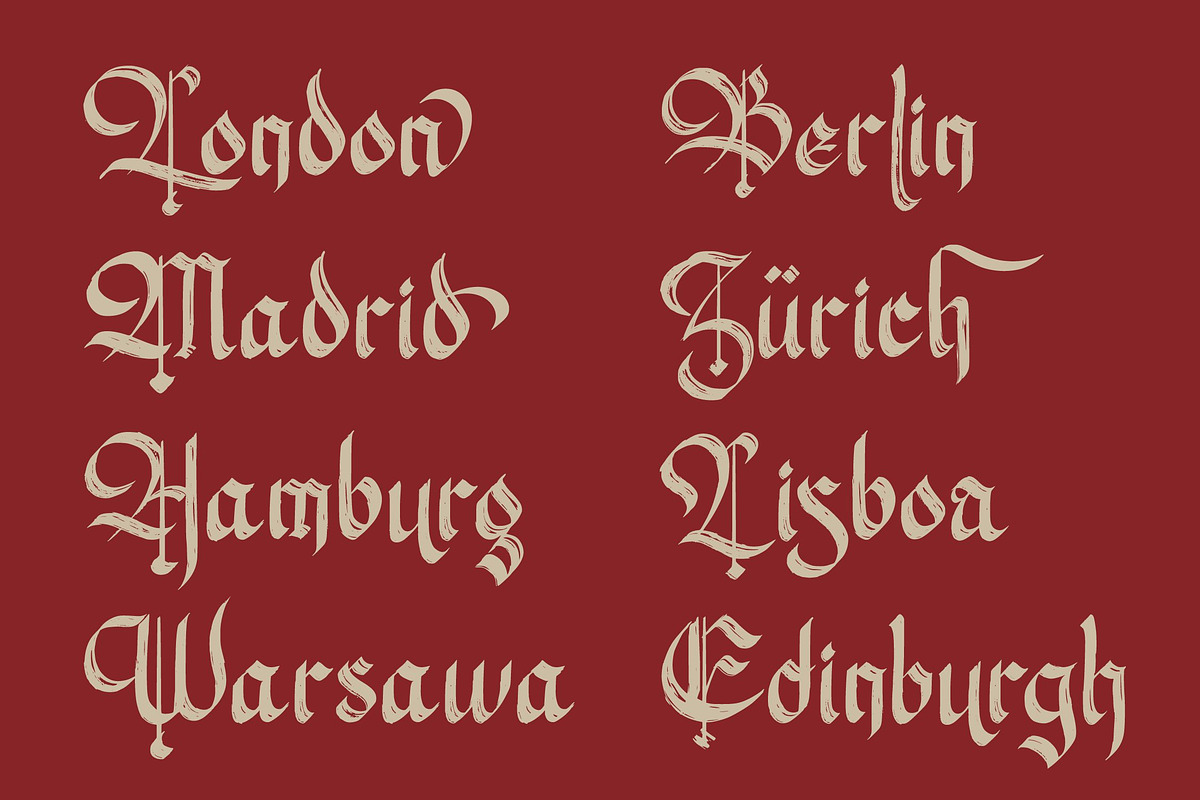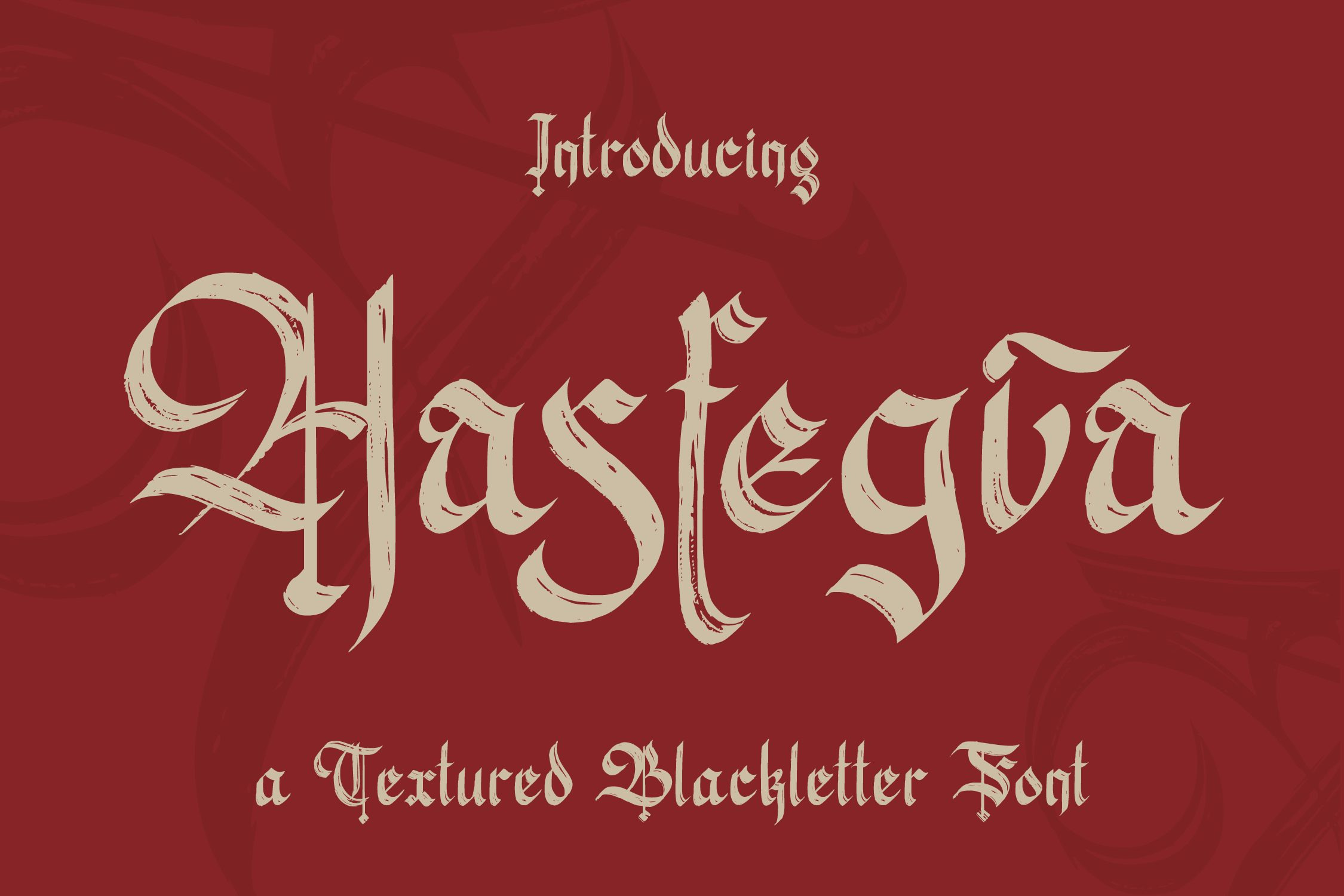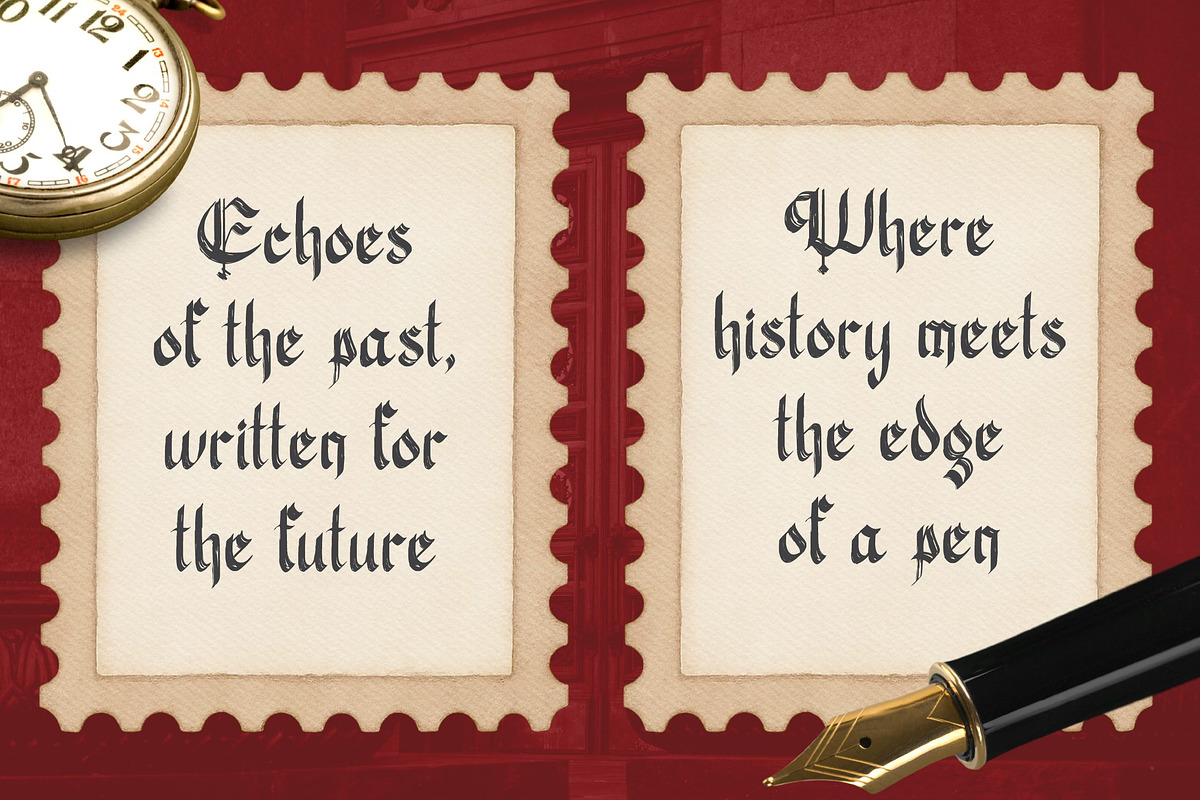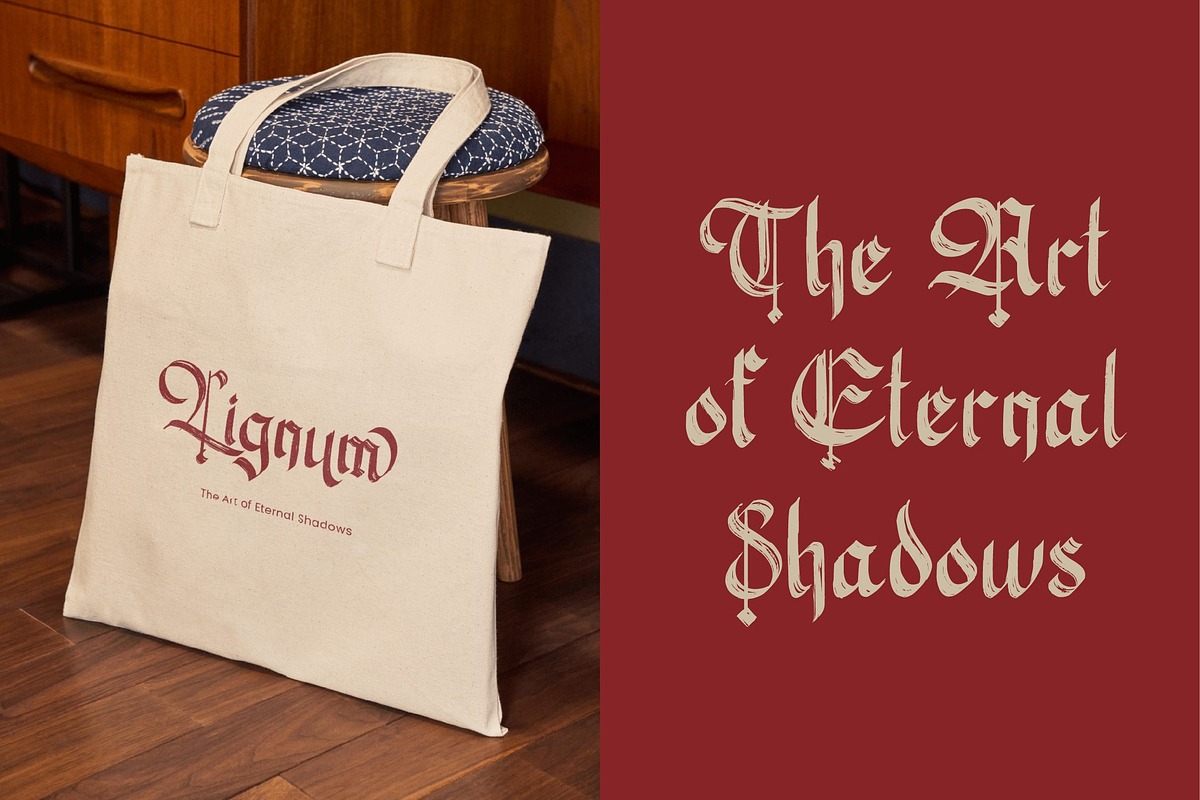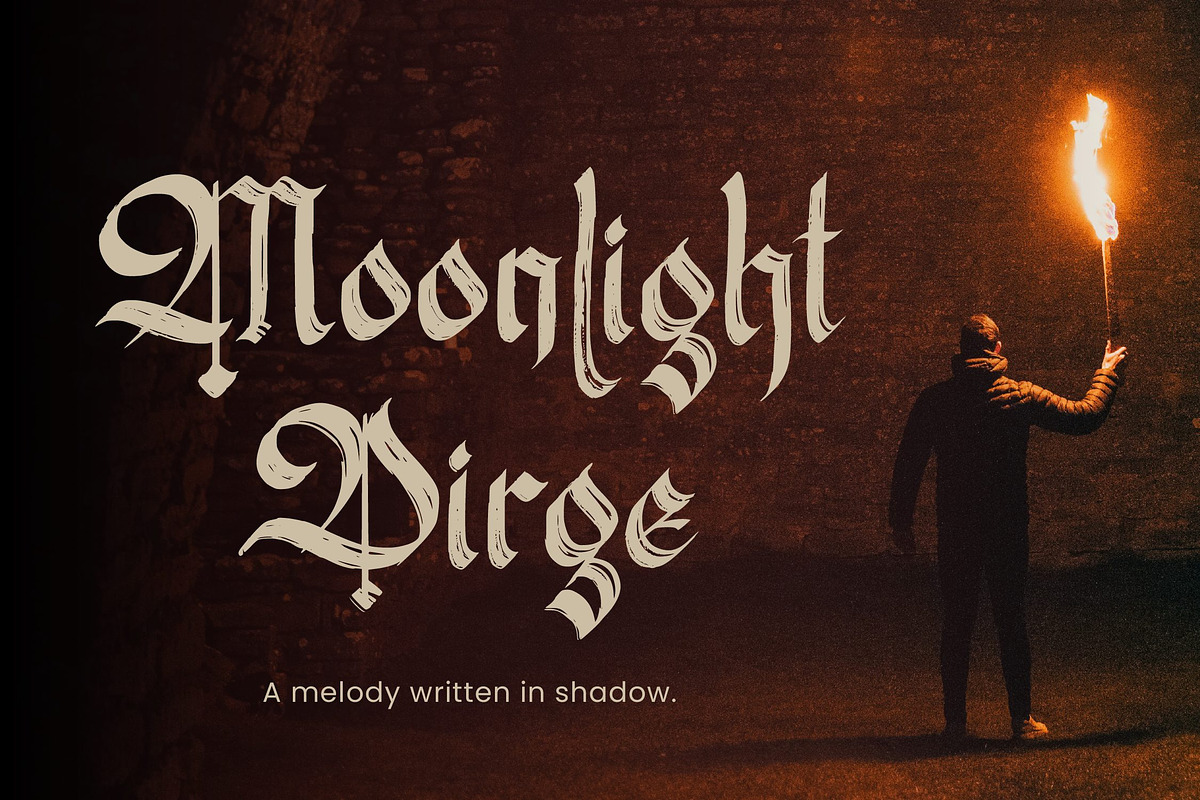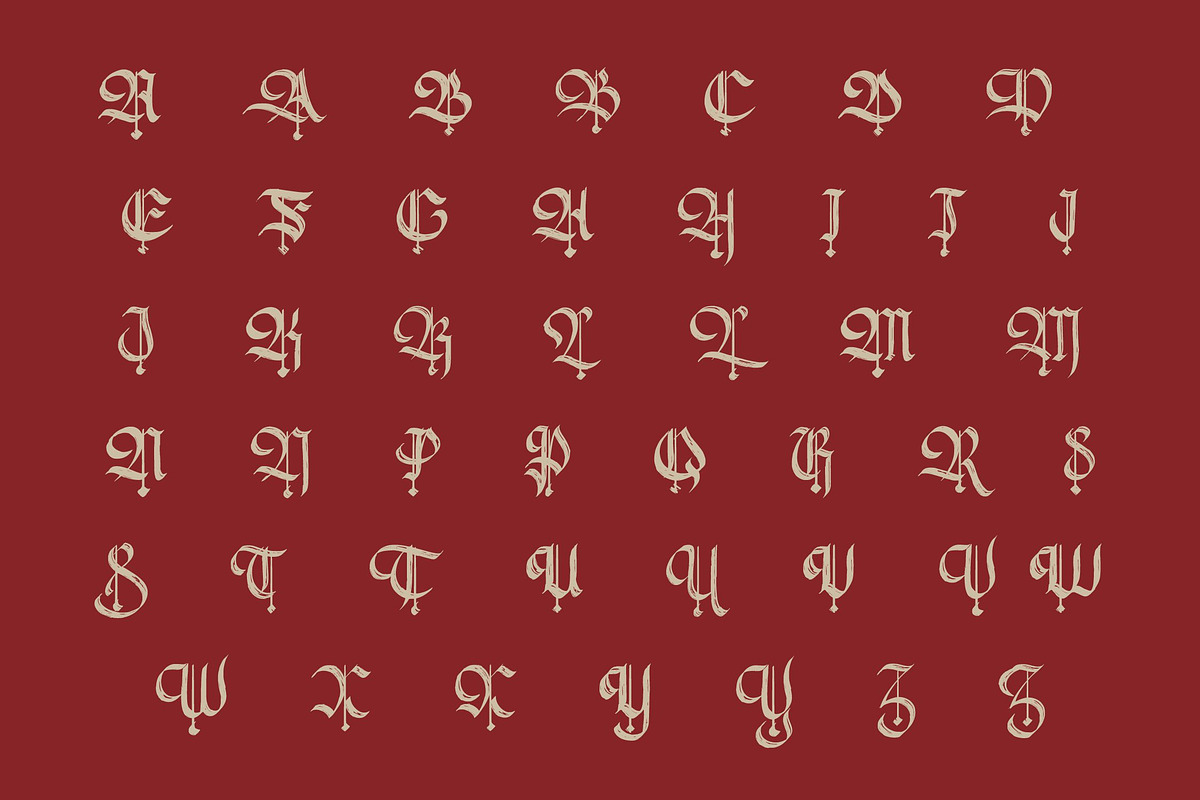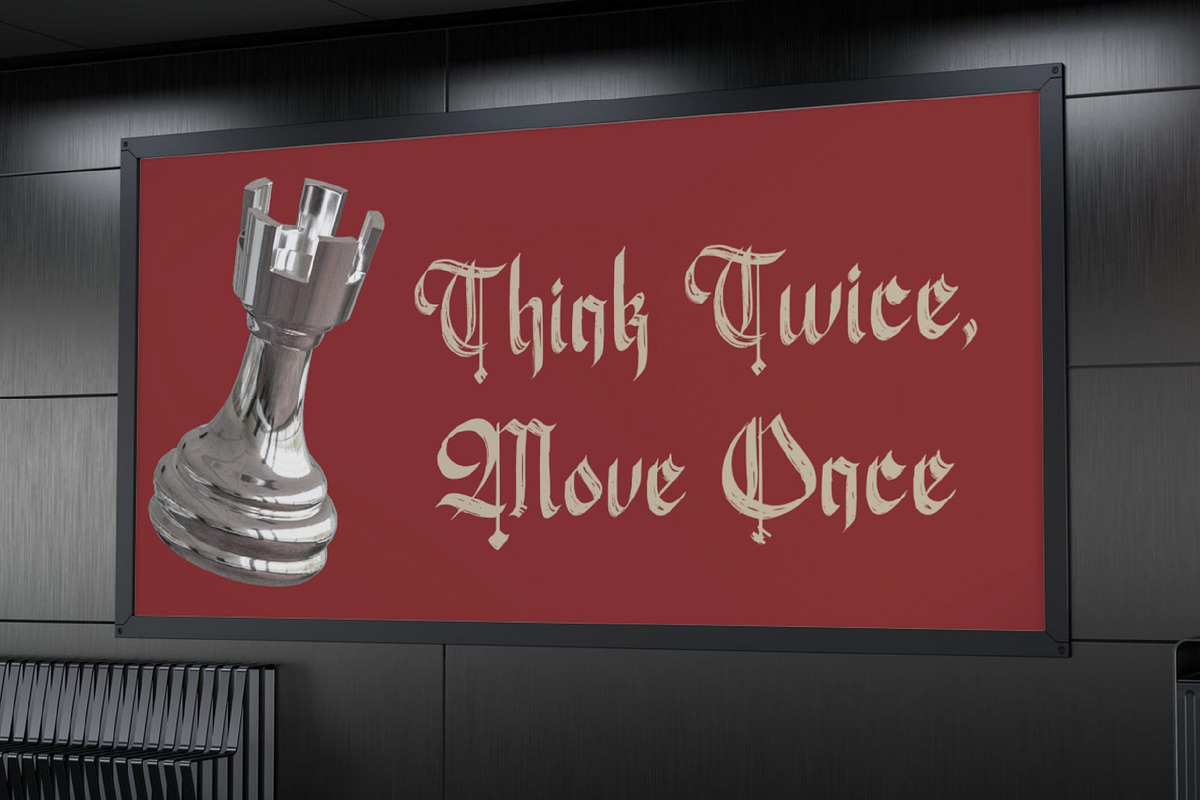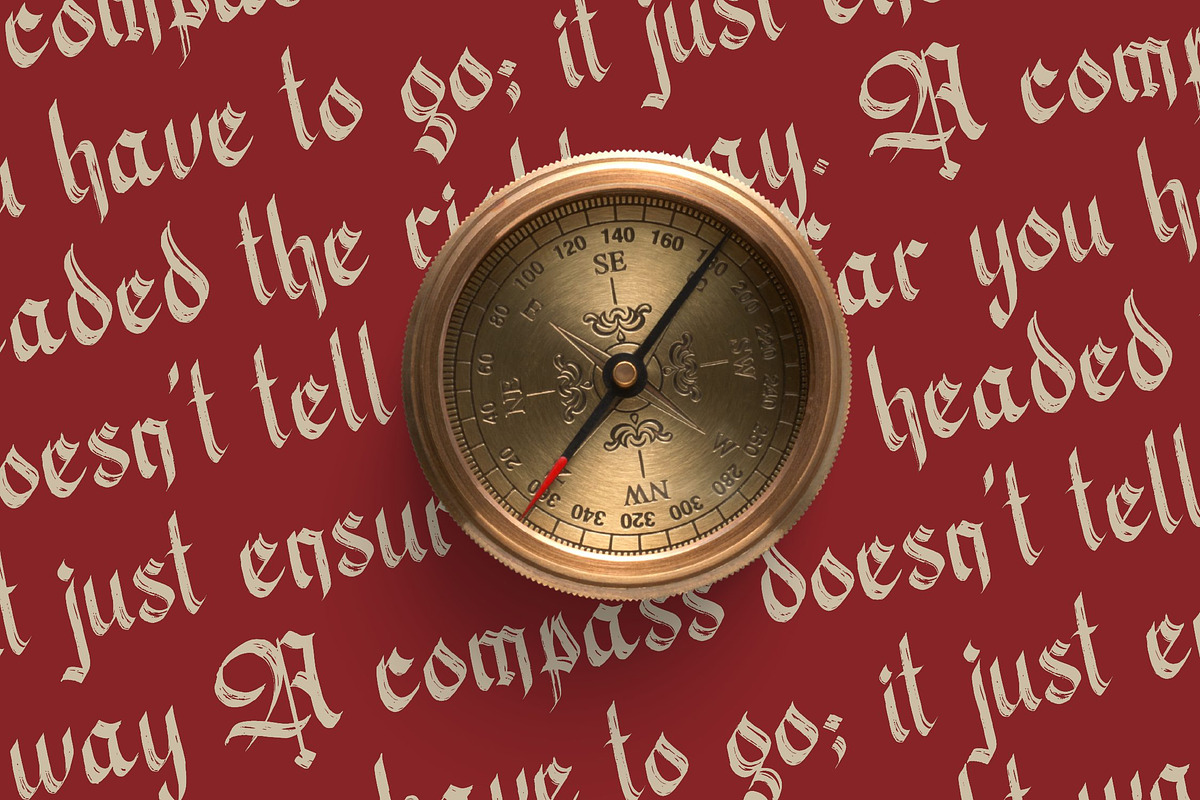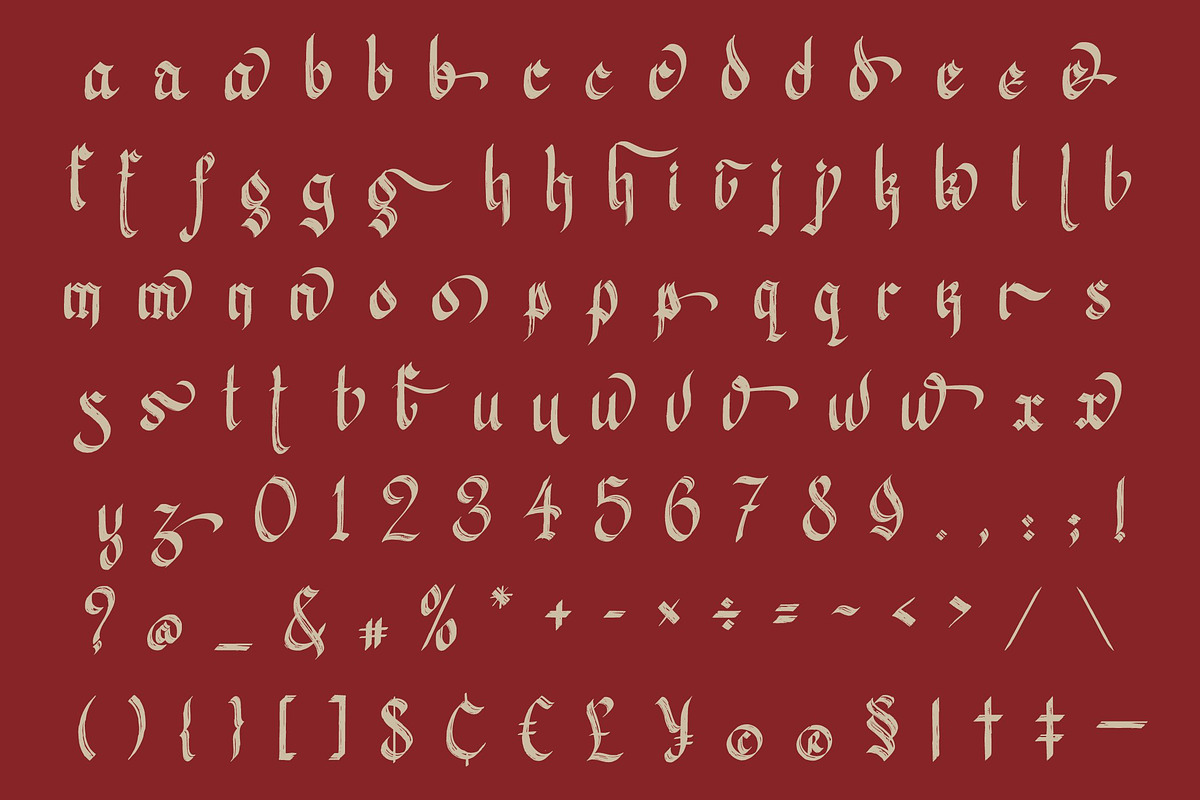
Hasfegia – Gothic Font
Hasfegia is a masterpiece of dark aesthetics, blending the timeless elegance of classic Gothic calligraphy with a raw, organic hand-drawn texture. Each character is meticulously crafted with sharp, aggressive strokes balanced by dynamic curves, creating a visual identity that is both majestic and mysterious.
The integrated distressed effect adds a high-end artisan depth to your typography, saving you the time of manual weathering while maintaining a professional, premium look.
Main Features:
- Unique Gothic Anatomy: Bold, sharp, and fluid letterforms inspired by medieval aesthetics.
- Authentic Hand-Drawn Texture: Subtle grit and weathering built directly into the font for an instant vintage feel.
- Professional OpenType Features: Access Stylistic Alternates and Swashes to create customized, one-of-a-kind layouts.
- Complete Character Set: Uppercase, Lowercase, Numerals, Punctuation, and Symbols.